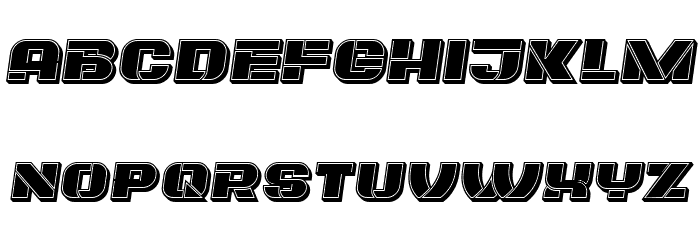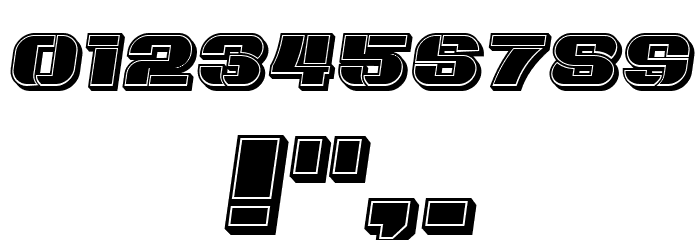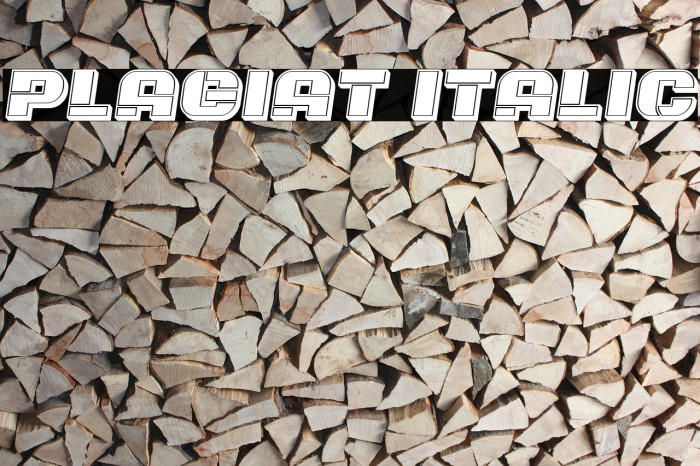
Plagiat Italic Font
This font features a bold, dynamic style with a strong presence. The characters are outlined with a thick, black border that gives them a three-dimensional effect. The interior of each letter is filled with a solid color, creating a striking contrast against the outline. The font has a modern, futuristic feel, with angular edges and a slightly italicized slant that adds a sense of movement and energy. The uppercase letters are particularly bold, while the lowercase letters maintain the same style but with a slightly more compact form. The numbers and special characters follow the same design principles, ensuring consistency across all elements.
A bold, outlined font with a modern, dynamic style and a slight italic slant.